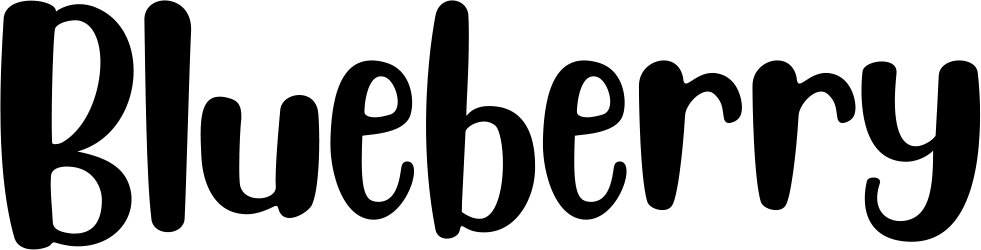
Blueberry Font
In this post, we are introducing a cartoon font named Blueberry. This font has a friendly, playful, and fun feeling to it. You can use it for cartoon names and posters, festive events, and party flyers, children’s book names, and zoo banners. This font does not contain all the characters.
I want to introduce Blueberry Layered Font, This font suitable for your design project especially for